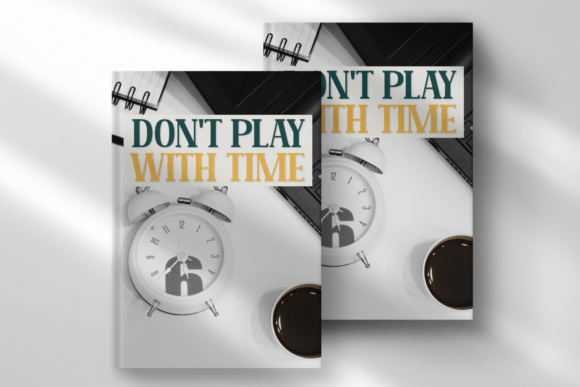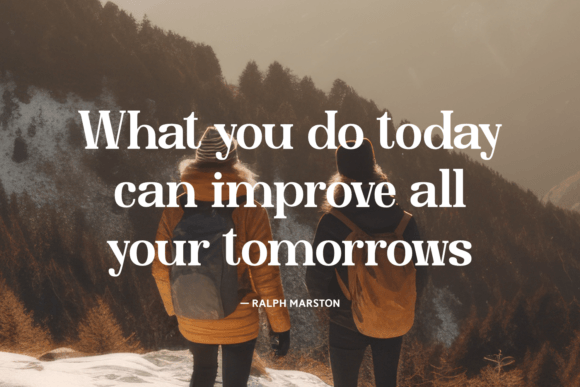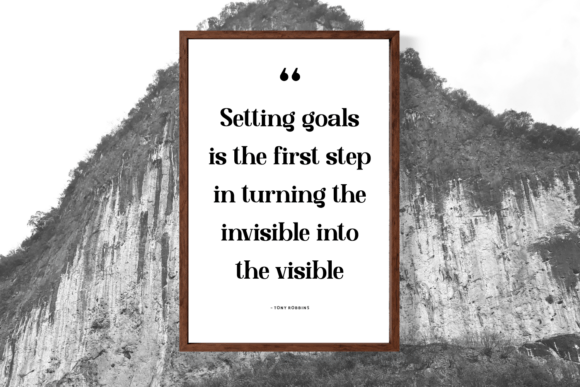
Introduction to Silver Letter Font
Silver Letter is a modern serif font with bold, stylish letters.
It features clean lines and elegant curves, making it perfect for headings and logos The font combines a contemporary look with a classic touch, giving your designs a sophisticated feel.
Key Features of Silver Letter Font
Why Choose Silver Letter Font?